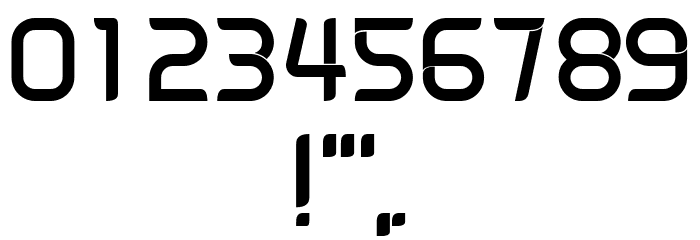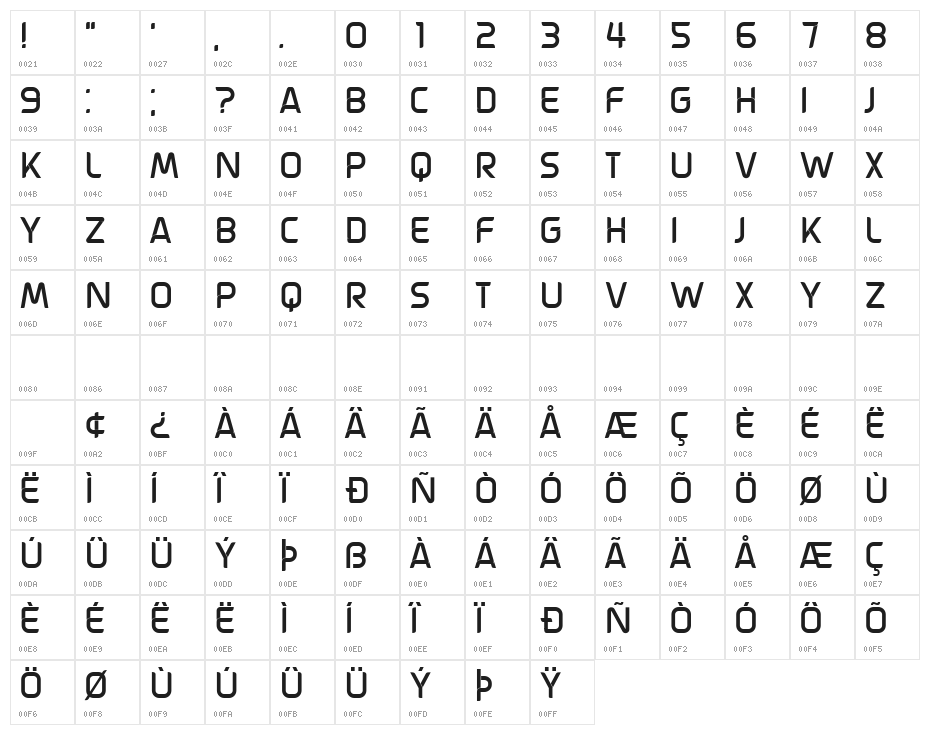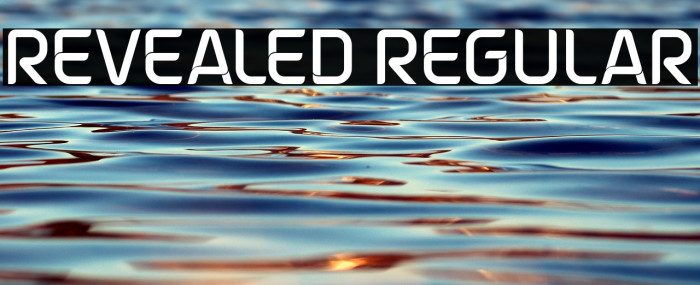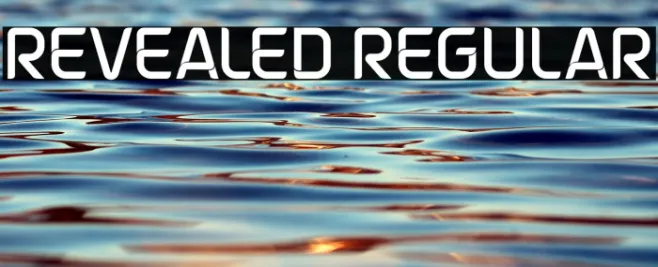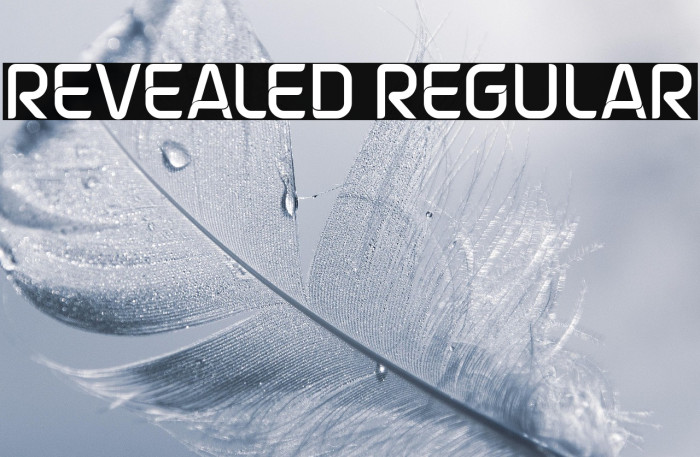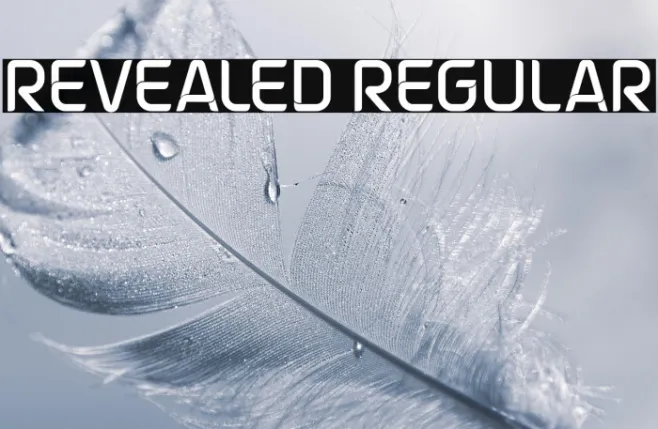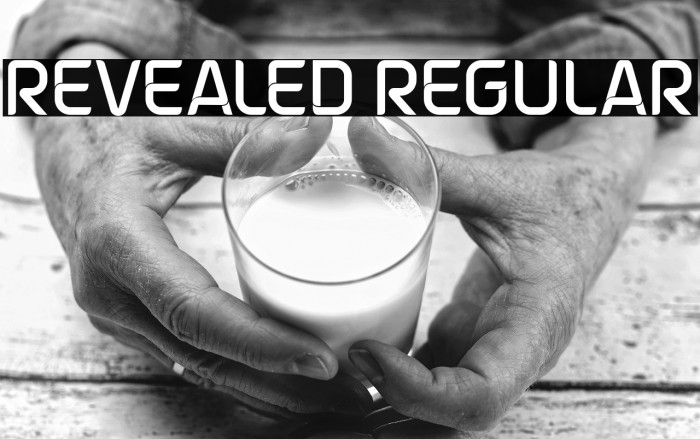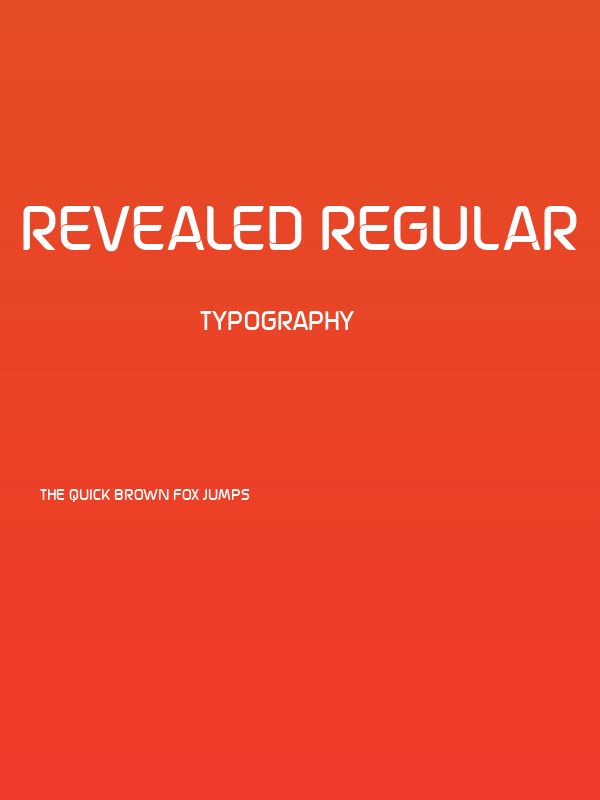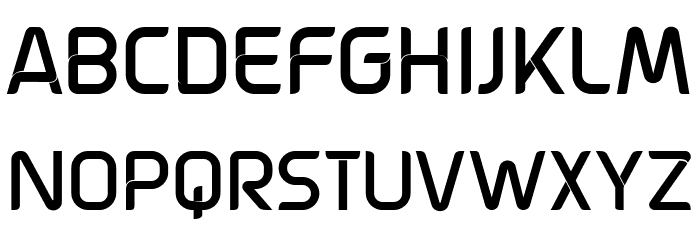
Revealed Regular Font
Revealed Regular Description
This font features a modern, geometric design with rounded edges and a clean, streamlined appearance. The characters are uniform in width, giving it a monospaced feel, though it is not strictly monospaced. The uppercase letters are bold and assertive, while the lowercase letters maintain the same geometric style, offering a cohesive look across different text sizes. The numerals are distinct and easy to read, matching the overall aesthetic of the alphabetic characters. Special characters are designed with the same attention to detail, ensuring consistency throughout the font.
| Use Case | Logos, Headlines, Digital interfaces |
| Proposed Projects | Ideal for technology branding, modern web design, and digital interfaces. |